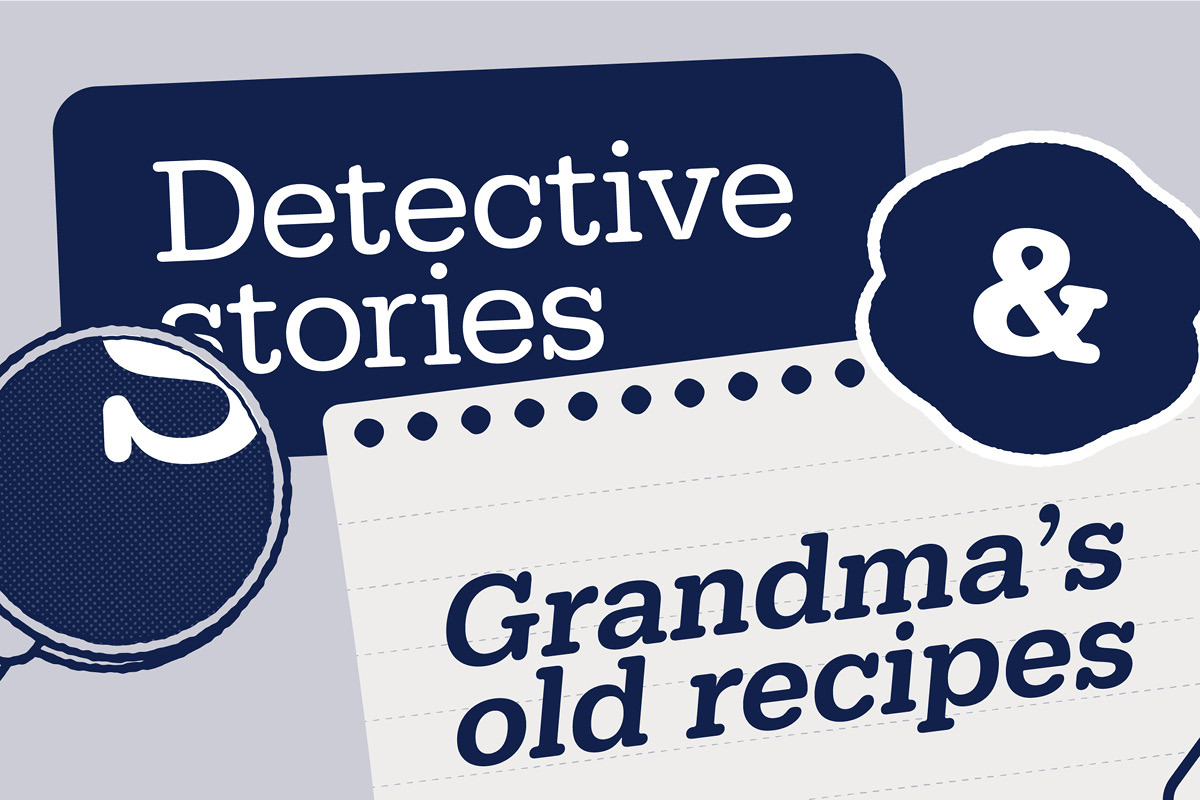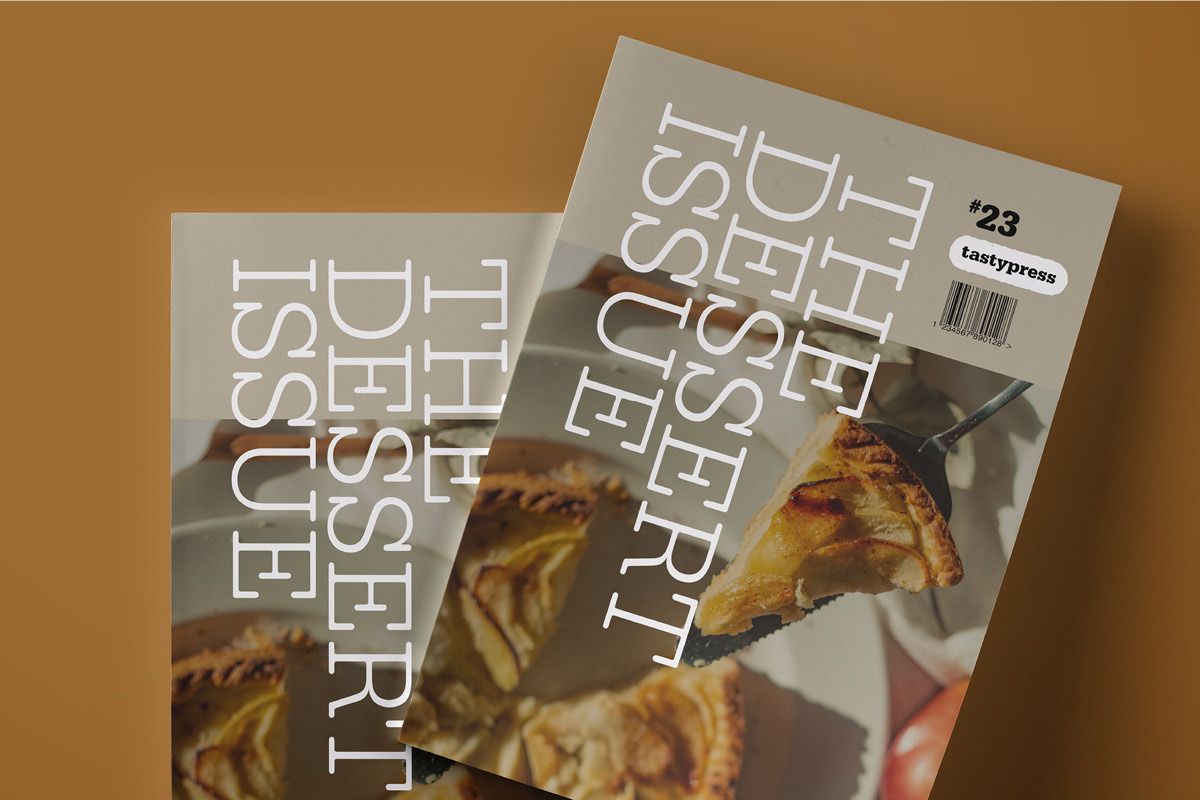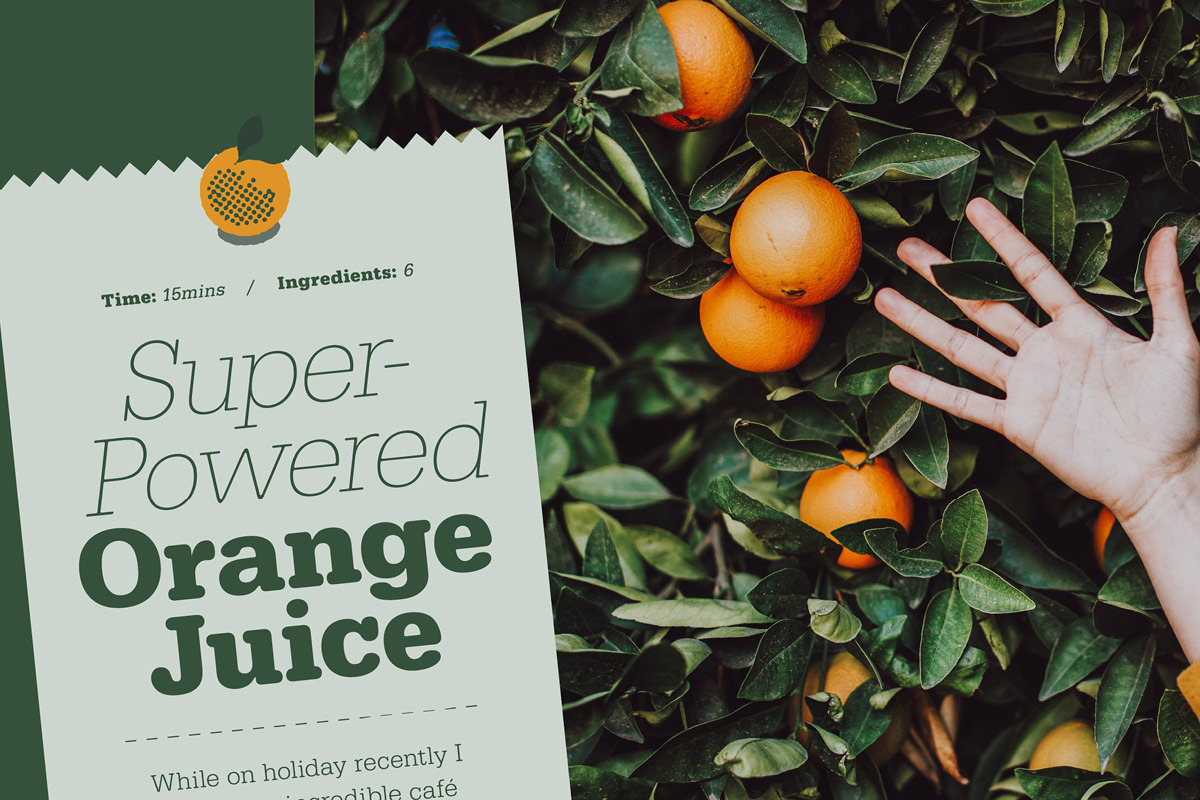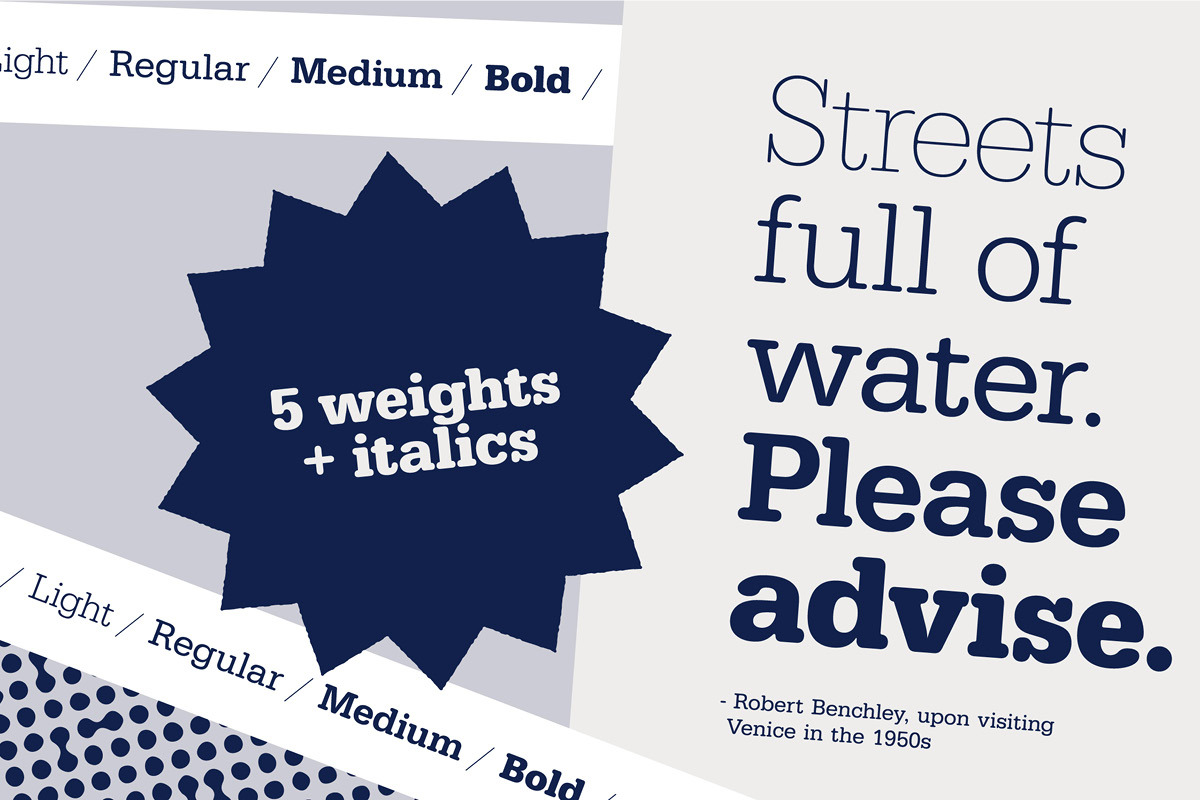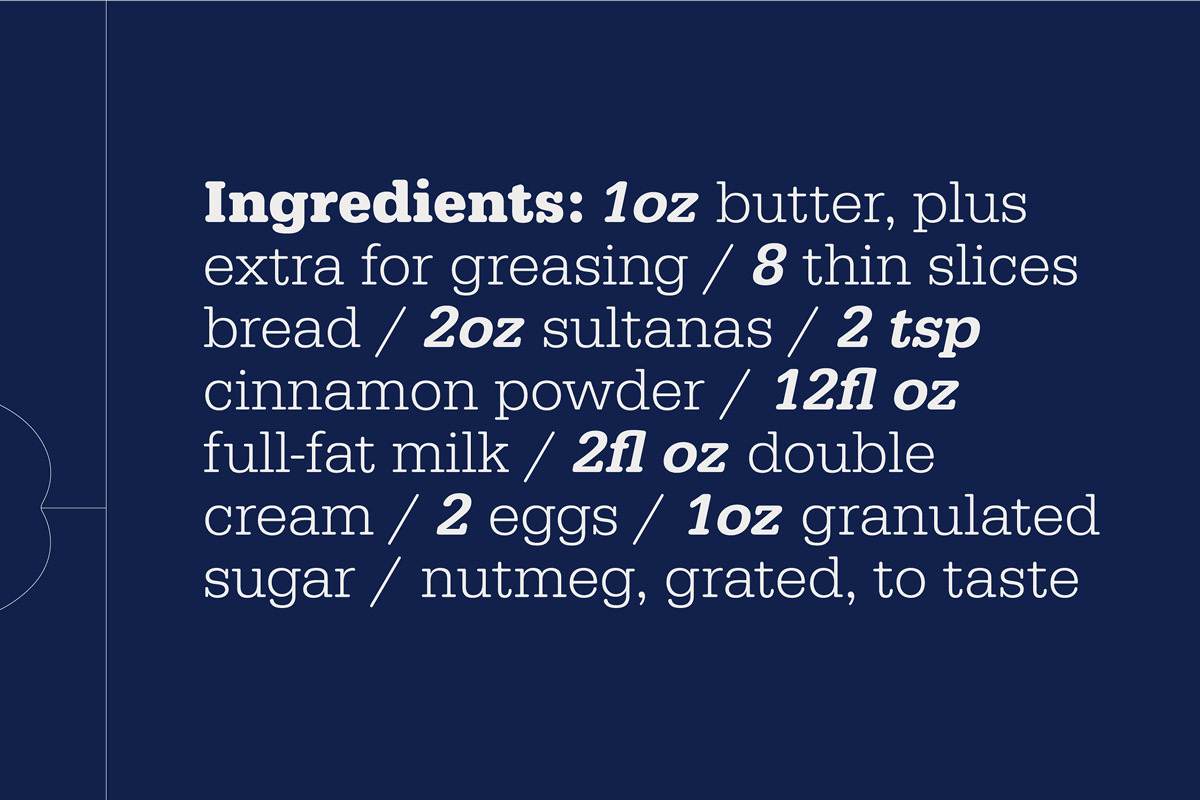
FP Typewriter family by FontPeople
Everyone loves a classic typewriter typeface. Whether you’re making posters for the next murder mystery book series or journaling Grandma’s old recipes, this typeface family does it all.